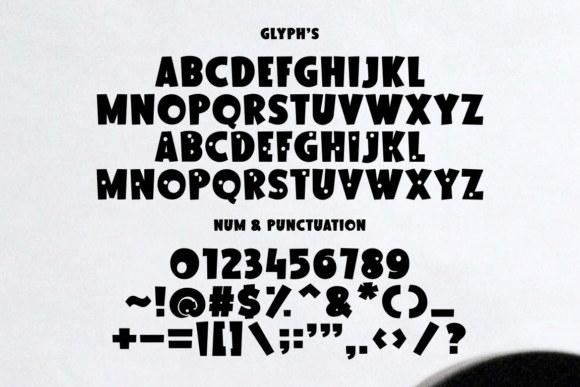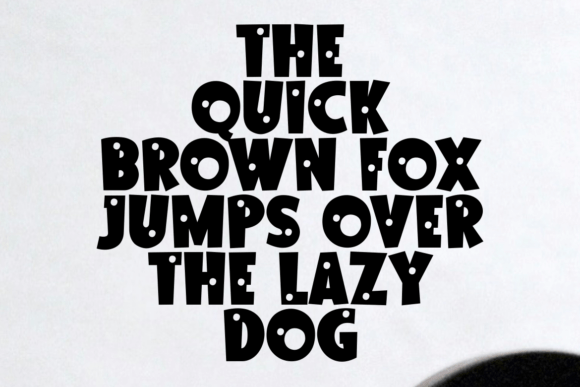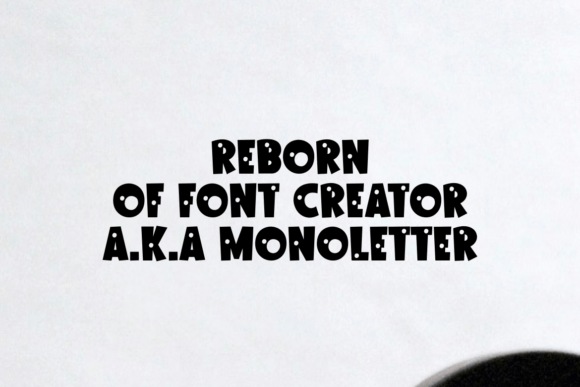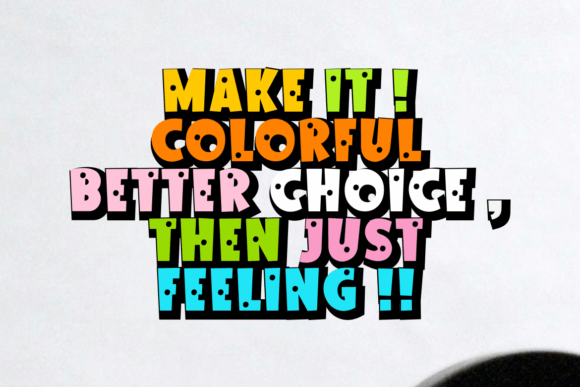
Unleash Your Creativity with Daltome Font: The Ultimate Display Font for Design Inspiration
Are you tired of using the same old fonts in your designs? Look no further! Immerse yourself in the vibrant, striking world of Daltome, a one-of-a-kind display font that sparks creativity and fun. With a revolutionary style that dances on the line between groundbreaking typography and playful cartoon design, Daltome is the muse for all font lovers seeking design inspiration.
The Birth of a Revolutionary Font
Daltome is not just another font – it’s an experience. This lively and fun font is designed to inspire creativity and encourage designers to think outside the box. Its unique style is a perfect blend of modern typography and playful cartoon design, making it a game-changer in the world of font design.
What Makes Daltome Special?
So, what sets Daltome apart from other fonts? Here are a few key features that make it a standout:
- Unique Style: Daltome’s revolutionary style is unlike anything you’ve ever seen before. Its bold and playful design makes it perfect for headlines, titles, and other display text.
- Highly Versatile: Daltome is a highly versatile font that can be used in a variety of design projects, from posters and flyers to digital graphics and branding.
- Easy to Read: Despite its bold and playful style, Daltome is surprisingly easy to read, making it perfect for use in body text as well as display text.
How Daltome Can Inspire Your Designs
Daltome is more than just a font – it’s a design inspiration tool. Its unique style and playful vibe can help spark creativity and inspire you to try new things in your designs. Here are a few ways Daltome can inspire your designs:
- Encourages Experimentation: Daltome’s bold and playful style encourages experimentation and creativity in design. It’s the perfect font to use when you want to try something new and different.
- Adds Visual Interest: Daltome’s unique style adds visual interest to any design, making it perfect for use in projects where you want to grab the viewer’s attention.
- Perfect for Branding: Daltome’s playful and modern style makes it perfect for use in branding projects, such as logos, business cards, and letterheads.
Tips for Using Daltome in Your Designs
Here are a few tips for using Daltome in your designs:
- Use it as a Headline Font: Daltome is perfect for use as a headline font, where its bold and playful style can really shine.
- Experiment with Colors: Daltome looks great in a variety of colors, so don’t be afraid to experiment and find the perfect color scheme for your design.
- Pair it with Other Fonts: Daltome can be paired with other fonts to create a unique and interesting design. Try pairing it with a clean and simple font for a bold and modern look.
| Font Name | Daltome Font |
| Author | Monoletter |
Whether you’re a professional designer or a crafty DIY enthusiast, Daltome is the perfect addition to your font library. Its revolutionary style and playful vibe make it a game-changer in the world of font design, and its ease of use makes it accessible to designers of all skill levels.